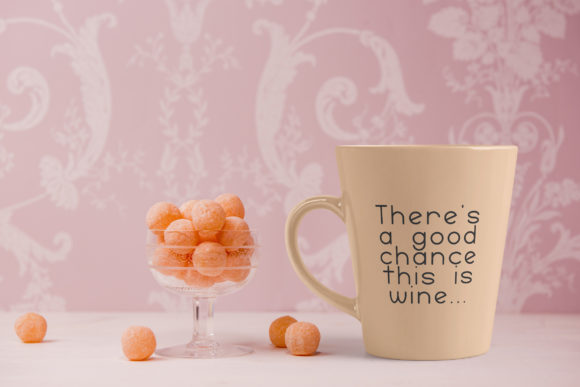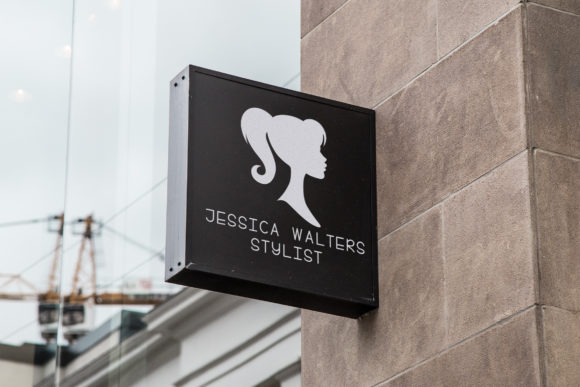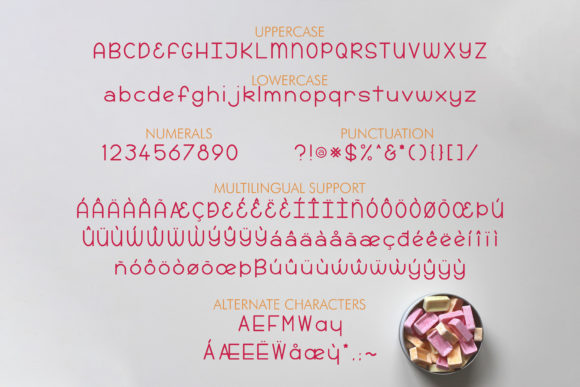
About Candy Chaser Font
Candy Chaser is a simple and neat handwritten font. Its natural and unique style makes it incredibly fitting to a large pool of designs. The only limit is your imagination!